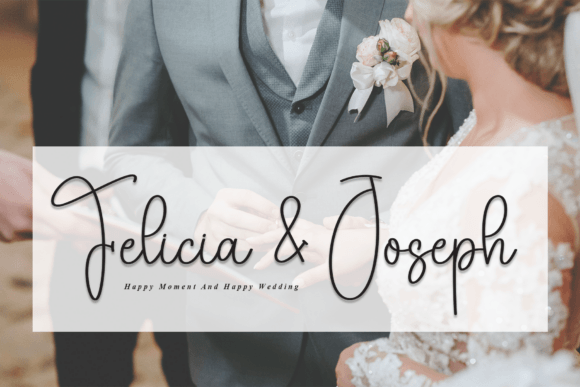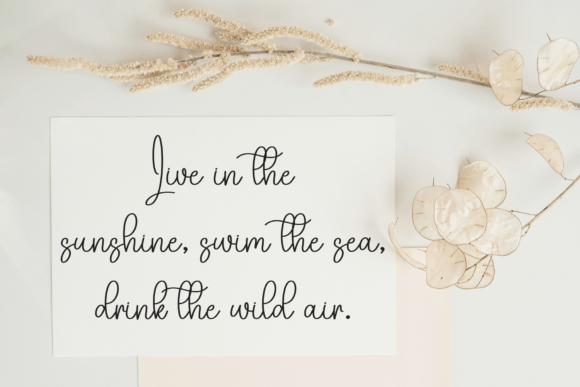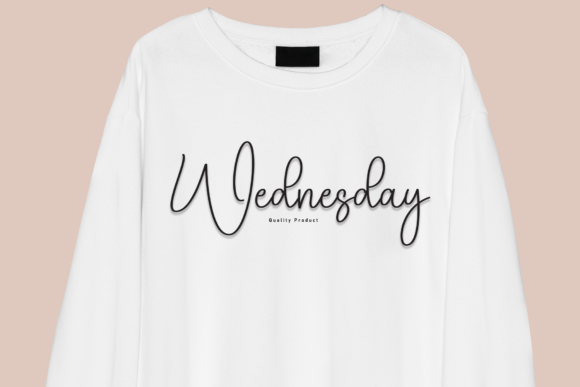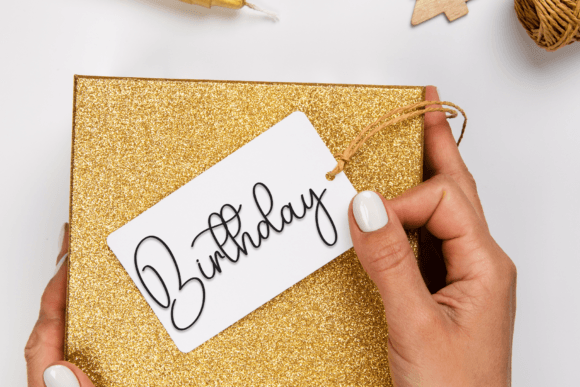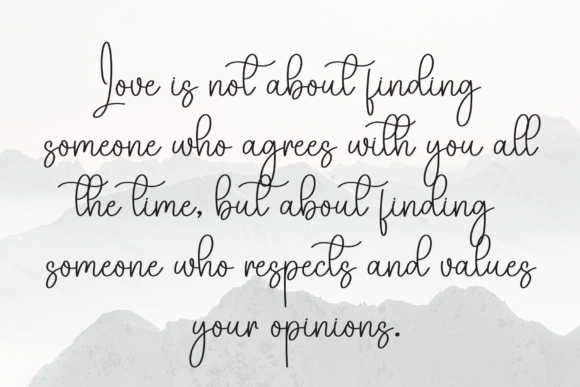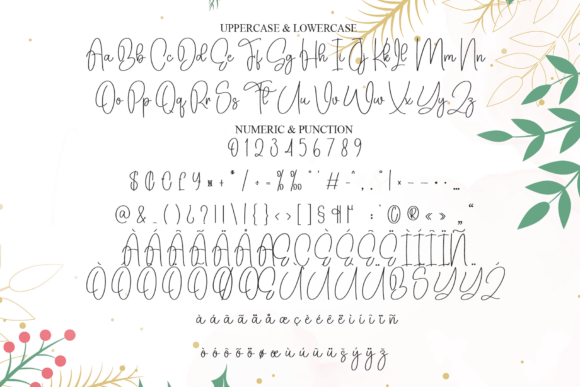
Introduction to Monday Christmas Font
As you’re sipping your hot cocoa, surrounded by twinkling lights and the warmth of the fireplace, you start brainstorming ideas for your holiday designs. The festive atmosphere is calling, and you want to create something truly special that captures the magic of the season. That’s where the Monday Christmas Font comes in – a beautiful and elegant script font that’s perfect for adding a touch of whimsy to your projects.
This stunning font has been a game-changer for designers, offering a high-quality design resource that’s free to download and use. With its smooth curves and stylish look, it’s no wonder why the Monday Christmas Font has become a go-to choice for creative projects, from holiday cards to decorations and beyond. Whether you’re working on a design project or simply want to add a festive touch to your social media posts, this font is sure to bring a warm and magical touch to your work.
Key Features of Monday Christmas Font
- High-quality, professional font design perfect for creative projects and holiday-themed designs.
- Unique, festive design elements with a modern twist, ideal for adding a touch of sophistication to any project.
- Perfect for use in holiday-themed designs, Christmas cards, gift tags, and other creative projects.
Honest Review: Monday Christmas Font
I recently stumbled upon the Monday Christmas Font and was immediately drawn to its unique charm. As a designer, I appreciate a good typography resource, and this one did not disappoint.
Here are some of the things that work well: ✨
- High quality vector graphics make it perfect for printing or digital use.
- Perfect for creative projects, from holiday cards to social media graphics.
While I appreciate the effort put into designing the Monday Christmas Font, there are a few limitations to consider: ⚠️
- Limited character set, which may not be suitable for extensive text-based projects.
- No clear guidelines for using the font in specific design contexts.
Overall, I’m impressed with the Monday Christmas Font’s design and versatility. It’s a great resource for designers looking to add a touch of festive flair to their creative projects. Just be mindful of its limitations and use it in the right context.
Monday Christmas Font
The Monday Christmas Font is a high-quality design resource ideal for creative projects, especially during the holiday season. This free download offers a unique and festive touch to your designs.
Tips for Getting the Most Out of the Monday Christmas Font
For the best results, use the Monday Christmas Font in conjunction with other holiday-themed design elements, such as images of snowflakes or holly. Experiment with different font sizes and styles to create a unique and eye-catching design.
Common Use Cases for the Monday Christmas Font
The Monday Christmas Font is perfect for holiday-themed designs, such as Christmas cards, invitations, and social media posts. It’s also great for adding a festive touch to your website or blog’s design.